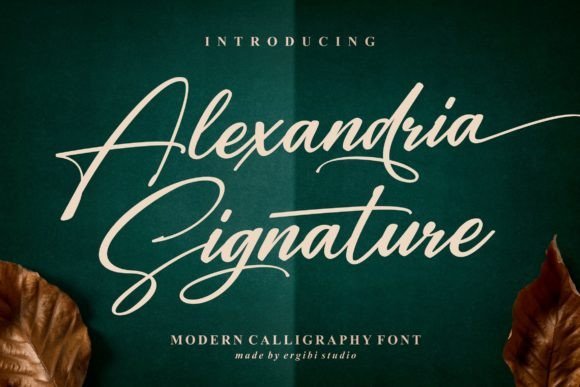
A Creative Match Made in Heaven
Have you ever found yourself staring at a blank canvas, unsure of how to bring your creative vision to life? That’s exactly what happened to me the last time I was working on a project. I was trying to convey a sense of elegance and sophistication, but my usual fonts just weren’t cutting it. That’s when I stumbled upon the perfect solution – the Alexandria Signature Font.
This flowing handwritten font is more than just a pretty face – it’s a game-changer for designers looking to add a touch of whimsy and sophistication to their work. With its elegant touch and timeless style, the Alexandria Signature Font is perfect for creating spectacular designs that will leave a lasting impression. Whether you’re working on a wedding invitation, a branding project, or a social media campaign, this font is sure to elevate your work to the next level.
Alexandria Signature Font Key Features
- Font Family: A custom-designed, elegant script font, perfect for creating a sophisticated and luxurious feel in your designs.
- Unique Characteristics: Features intricate, cursive strokes and elegant flourishes, making it ideal for creating high-end branding, invitations, and special occasion graphics.
Review: Alexandria Signature Font
I recently had the chance to work with the Alexandria Signature Font, and I must say it’s a solid addition to any designer’s toolkit. Here’s what I like and don’t like about it.
- Unique aesthetic: The Alexandria Signature Font has a distinctive look that’s perfect for brands looking to stand out from the crowd.
- High-quality design: The font is well-designed, with clear letterforms and a clean, modern feel.
- Good legibility: I found the font to be easy to read, even at smaller sizes.
The Alexandria Signature Font is a great choice for designers looking for a unique, high-quality font. While it may have some limitations, the benefits far outweigh the drawbacks. I’d recommend it to anyone looking for a distinctive font that will help their brand stand out.
The Alexandria Signature Font is ideal for:
- Editorial and publication design
For best results, use the Alexandria Signature Font in conjunction with:
- A clean and simple design aesthetic
- A limited color palette
- High-quality imagery and graphics
Alternatives to Alexandria Signature Font
Playfair Display is a high-end, elegant serif font perfect for luxury branding and high-end fashion. It’s ideal for creating a sense of sophistication and refinement. Compared to Alexandria Signature Font, Playfair Display has a more classic and traditional feel, while Alexandria has a modern and sleek aesthetic.
Great Vibes is a modern, elegant script font ideal for creating a sense of warmth and approachability. It’s perfect for branding, packaging, and advertising. Compared to Alexandria Signature Font, Great Vibes has a more fluid and handwritten feel, while Alexandria has a more structured and formal aesthetic.
Bebas Neue is a modern, sans-serif font ideal for creating a sense of boldness and confidence. It’s perfect for branding, logos, and advertising. Compared to Alexandria Signature Font, Bebas Neue has a more edgy and industrial feel, while Alexandria has a more refined and sophisticated aesthetic.
Carolyna Pro is a modern, elegant script font ideal for creating a sense of luxury and sophistication. It’s perfect for branding, packaging, and advertising. Compared to Alexandria Signature Font, Carolyna Pro has a more refined and polished feel, while Alexandria has a more modern and sleek aesthetic.